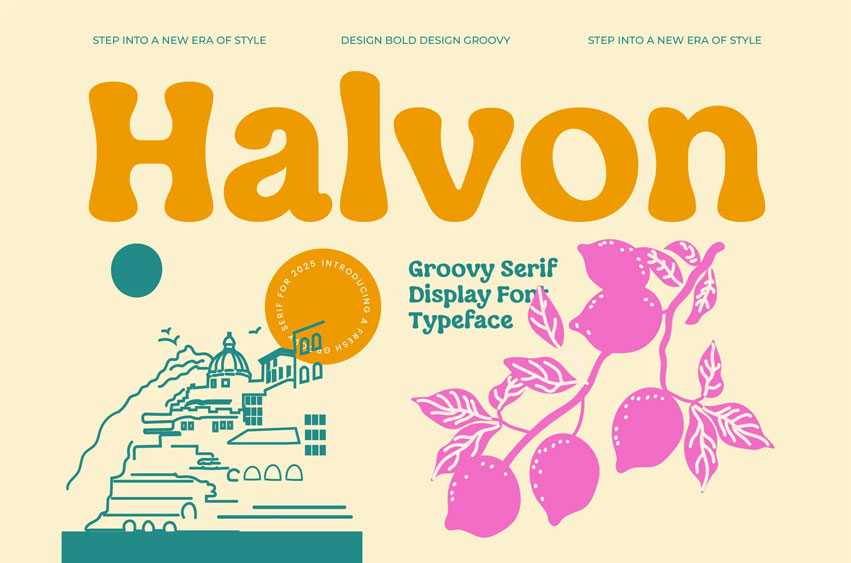
Halvon Font display serif Font is a unique, modern display font with a unique, elegant, and modern style.
It is a display font perfect for branding projects, logos, social media posts, product packaging, labels, etc.